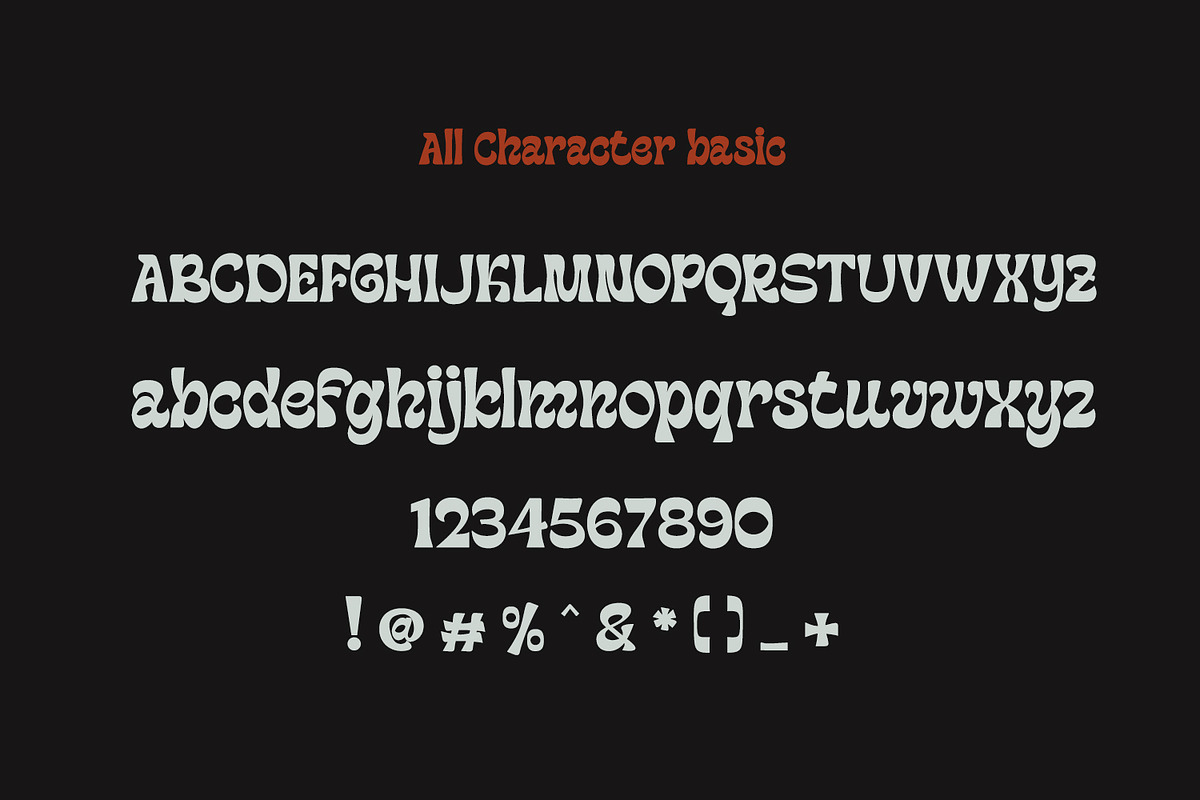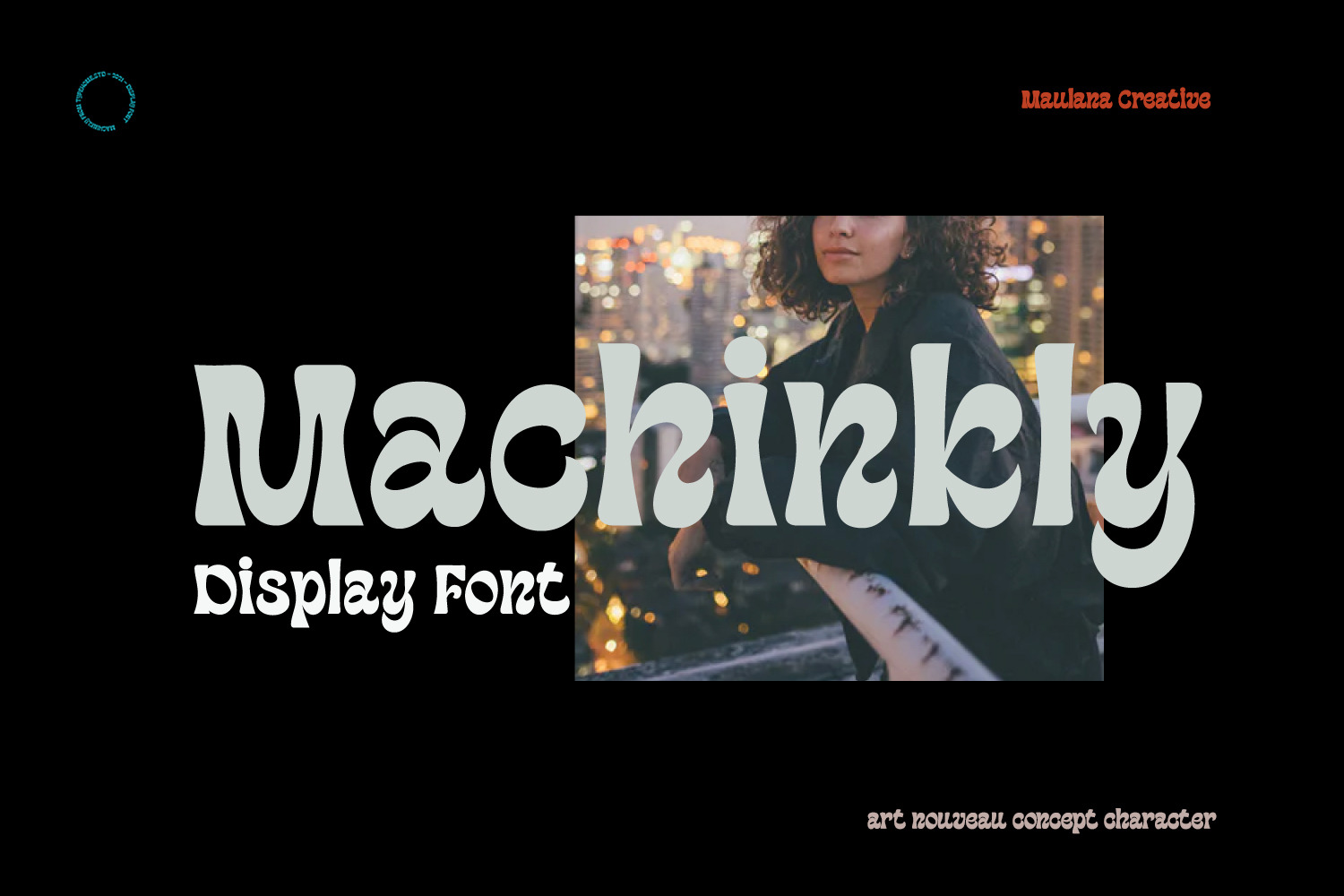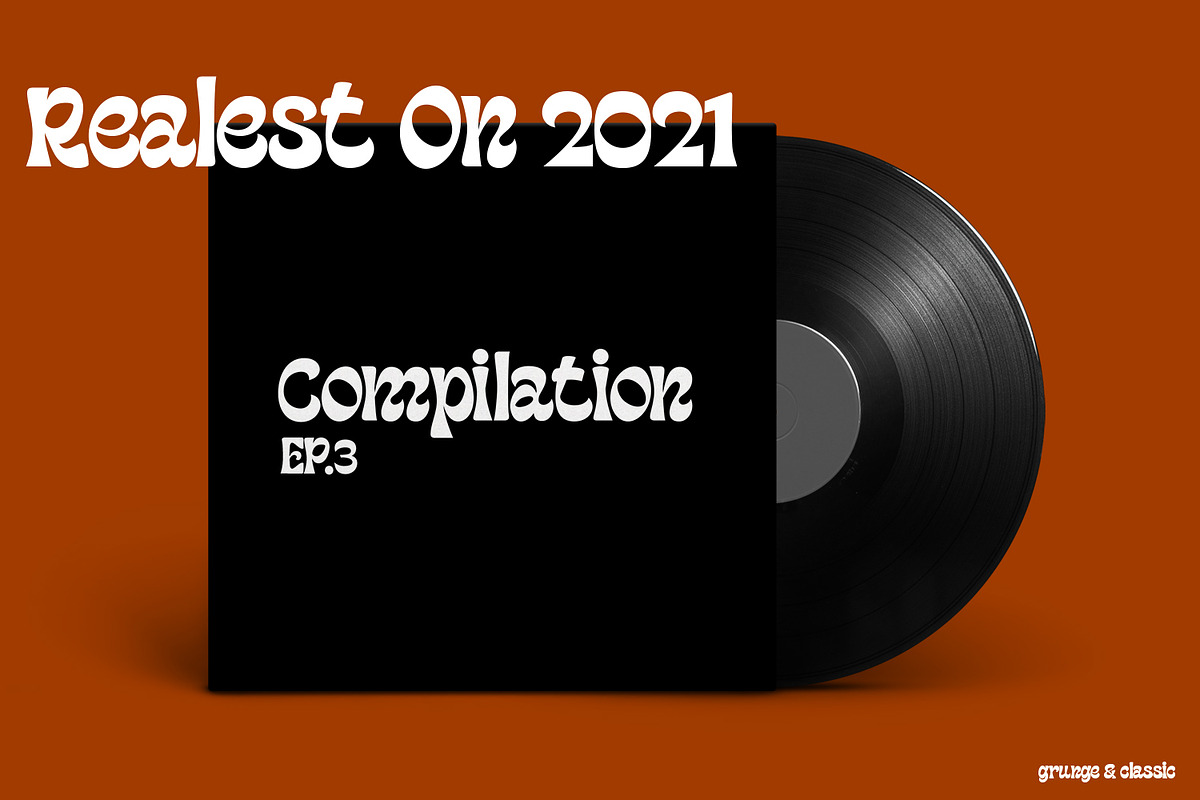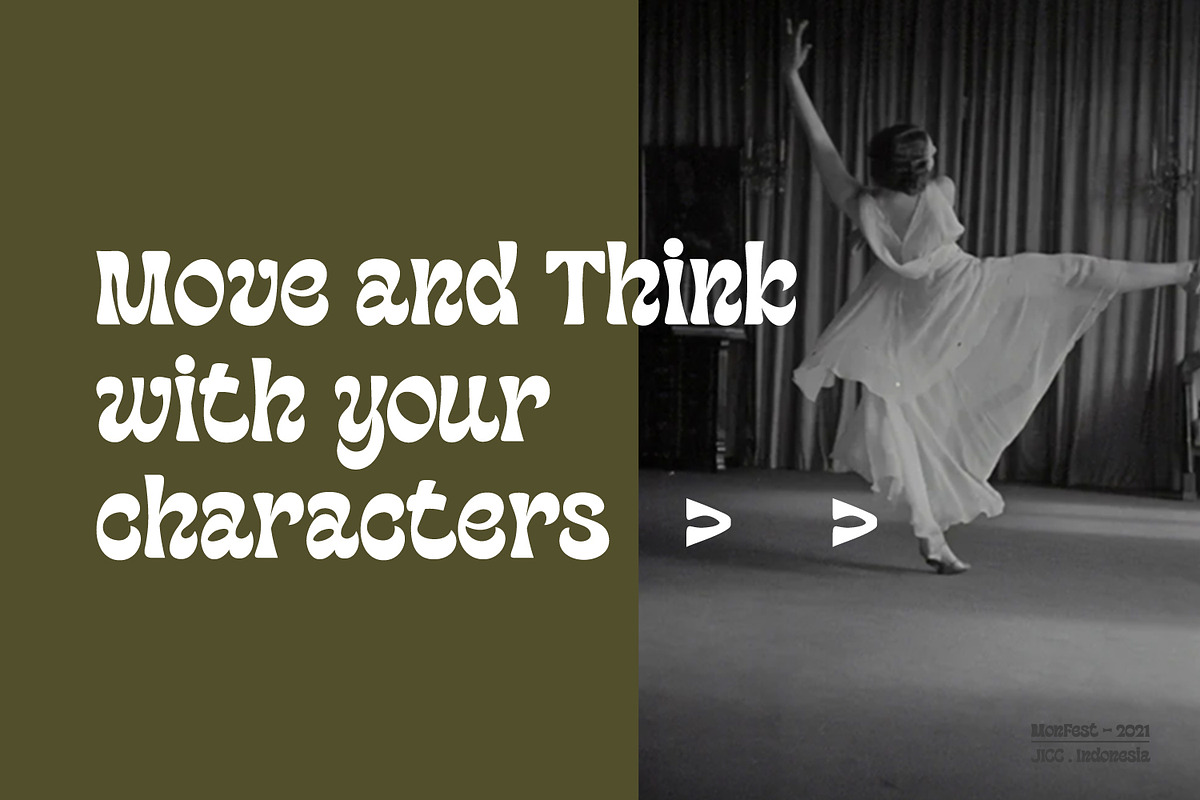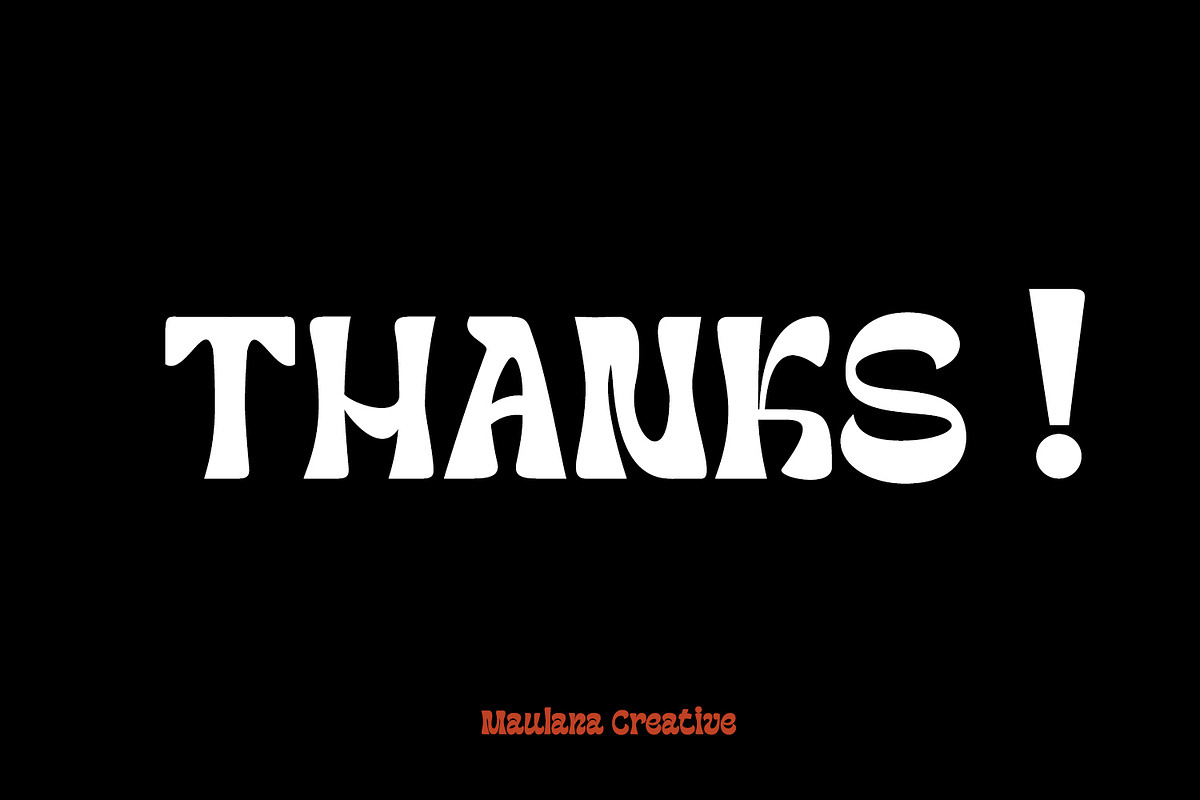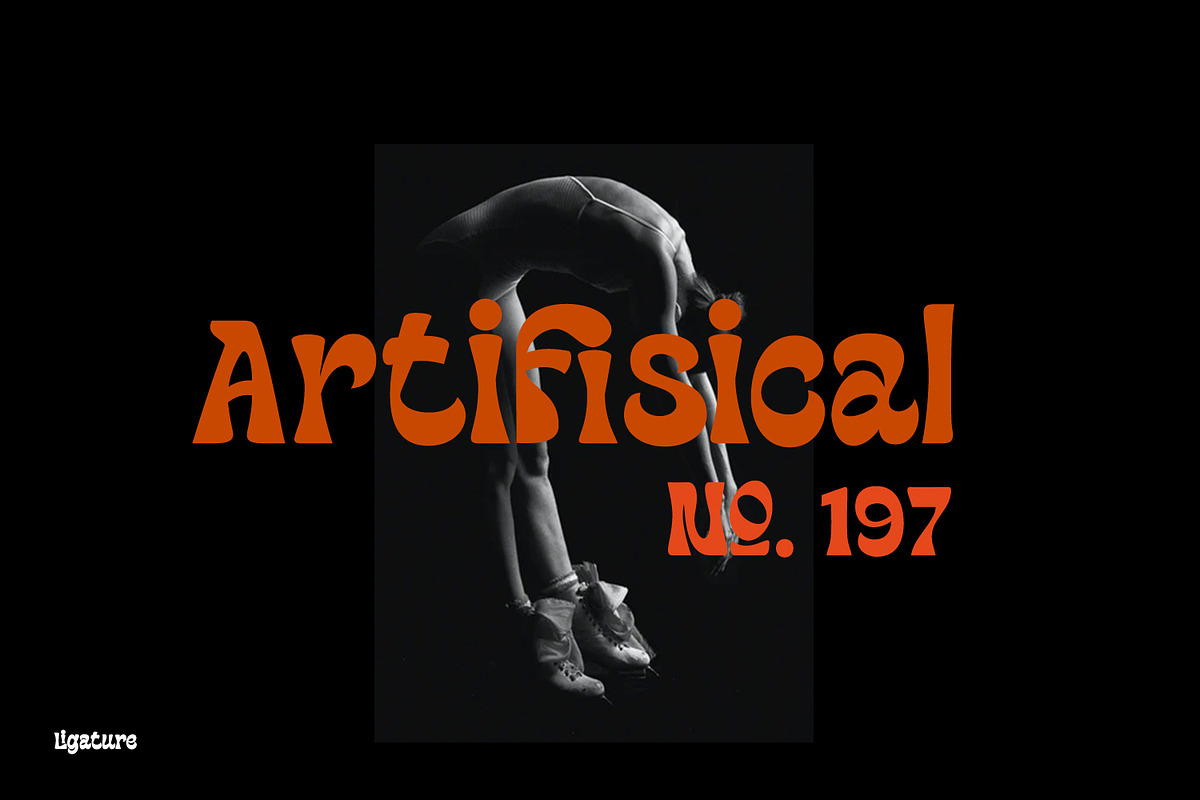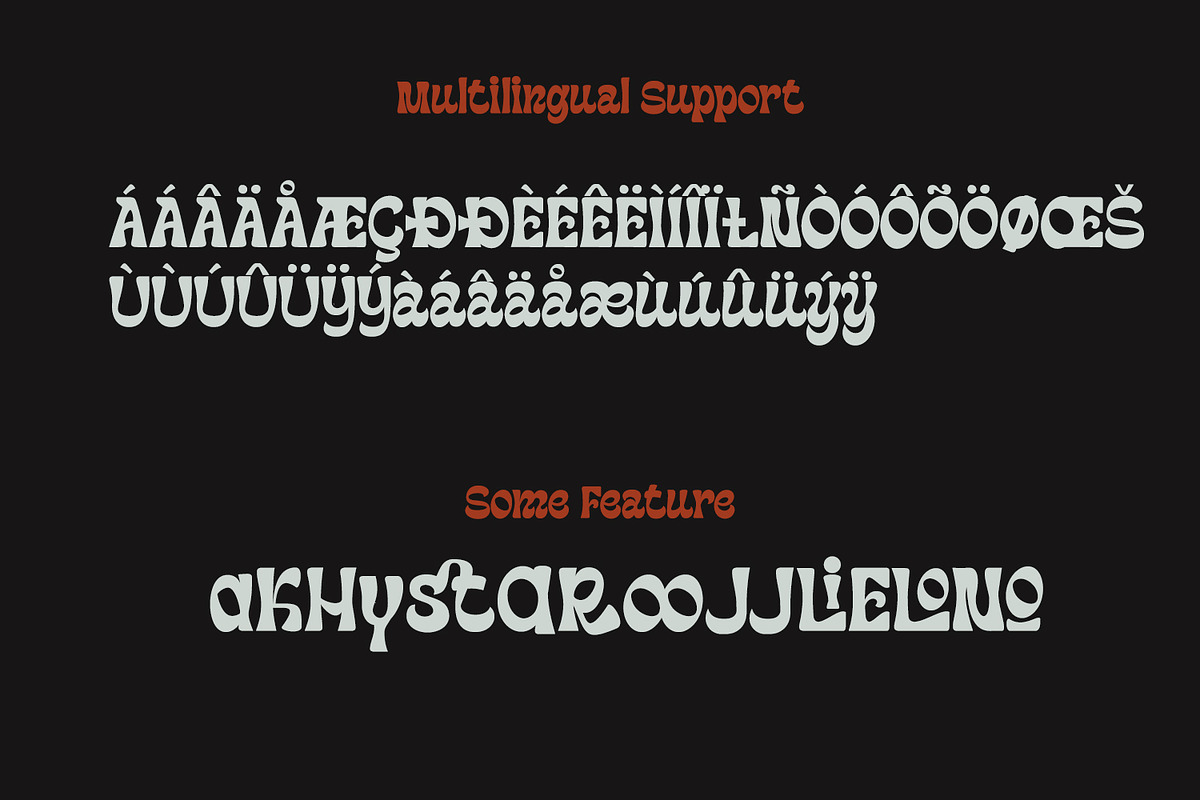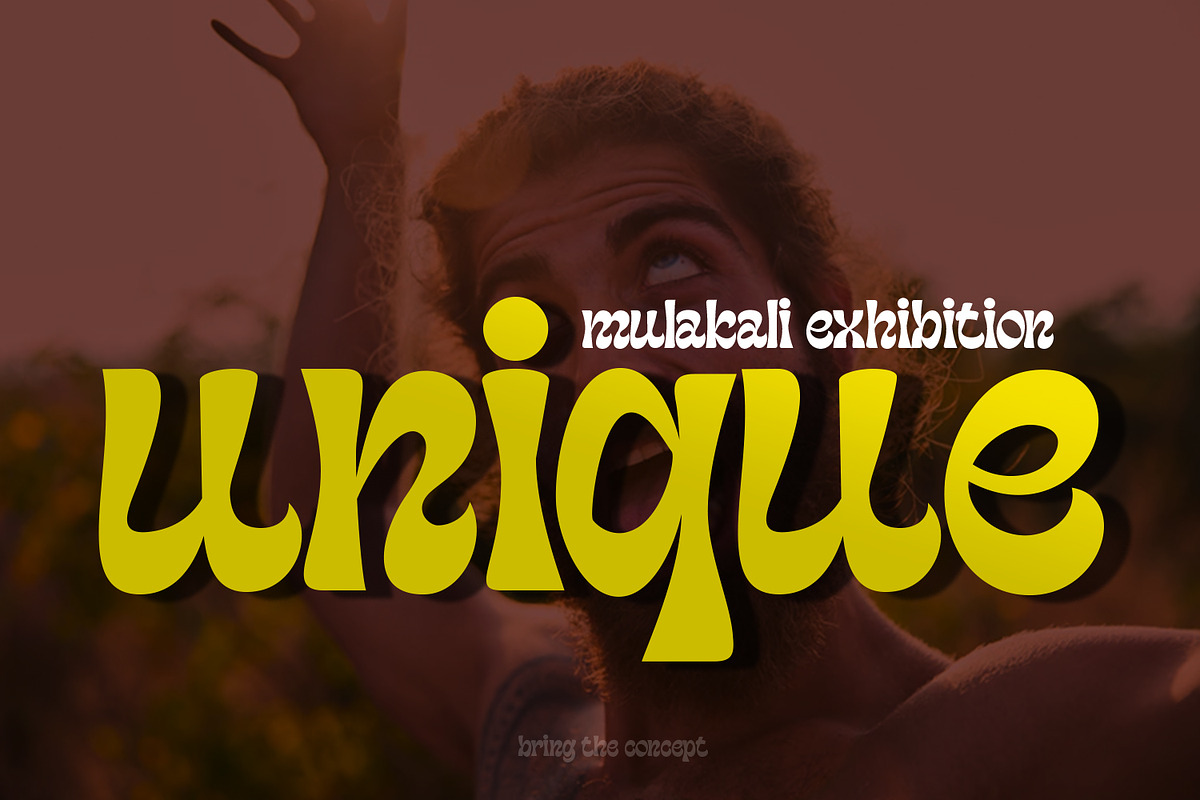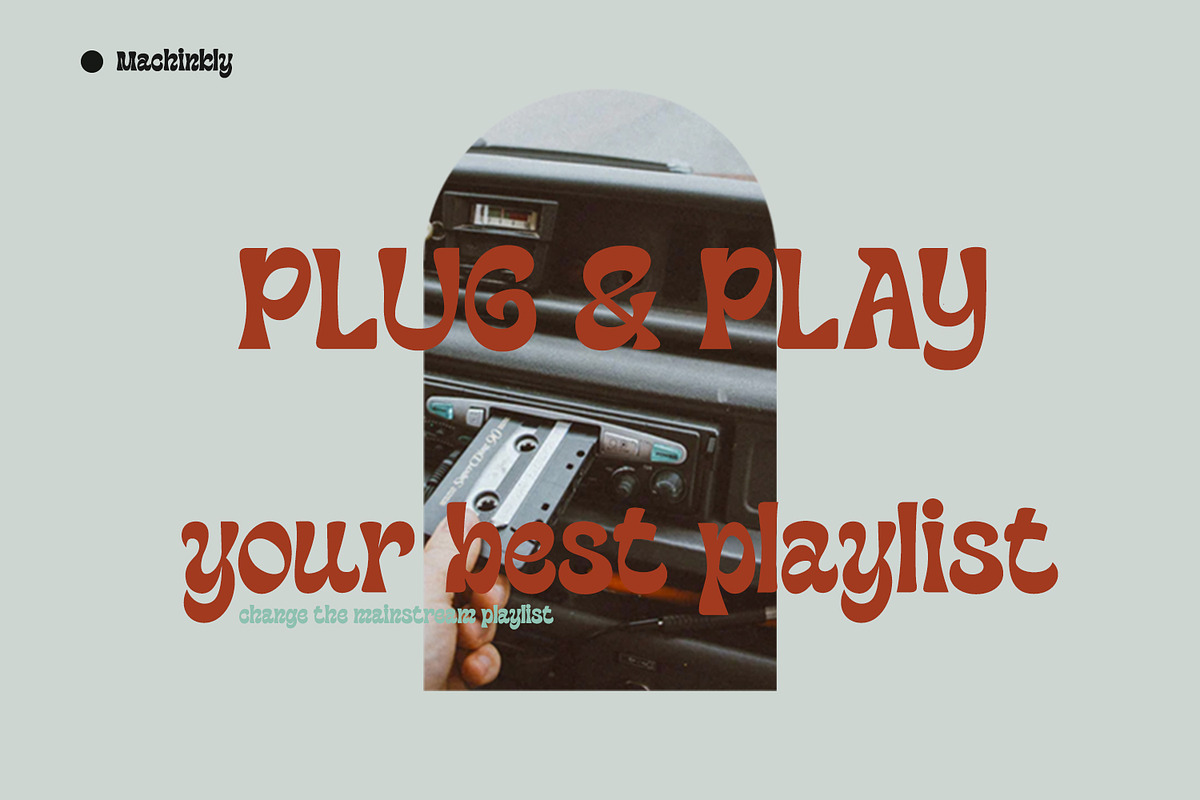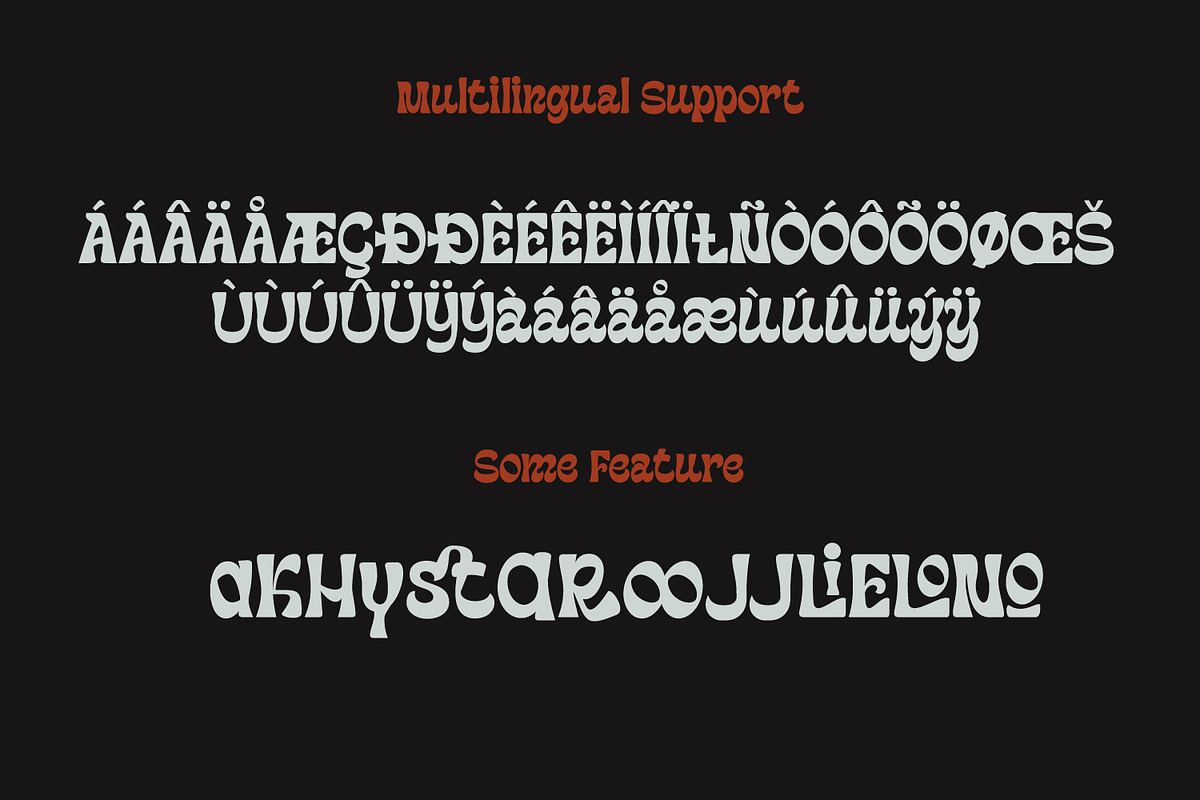
Machinkly Display Font
Give your designs an authentic handcrafted feel. “Machinkly Display Font” is perfectly suited to poster, stationery, logo, typography quotes, magazine or book cover, website header, clothing, branding, packaging design and more.